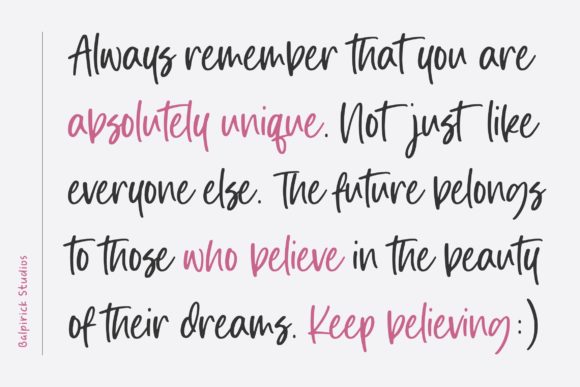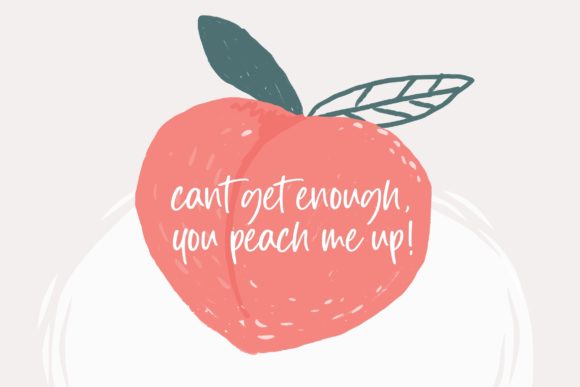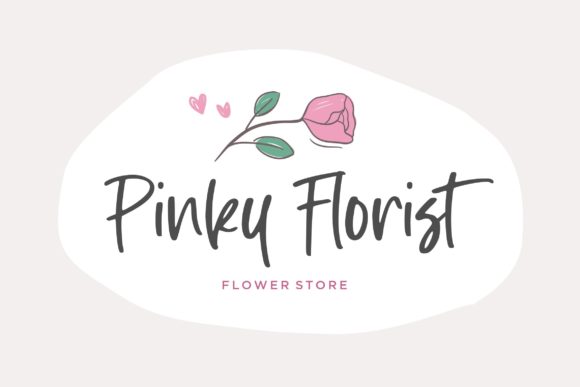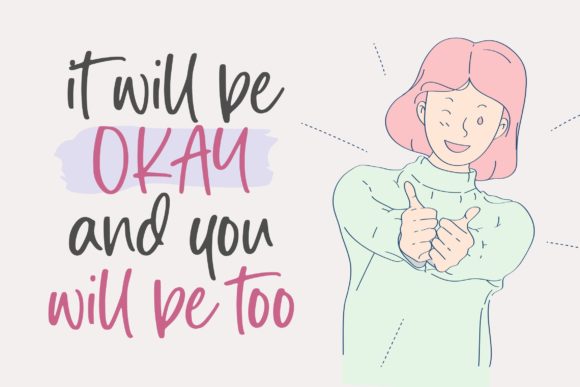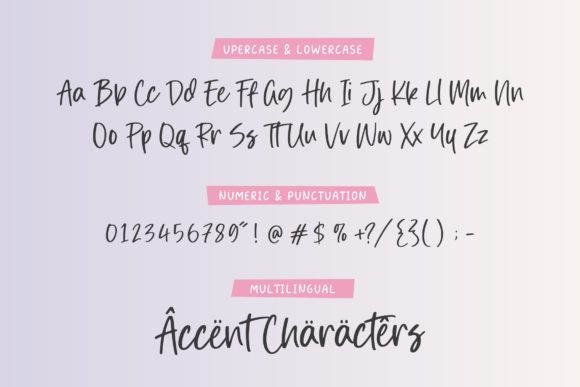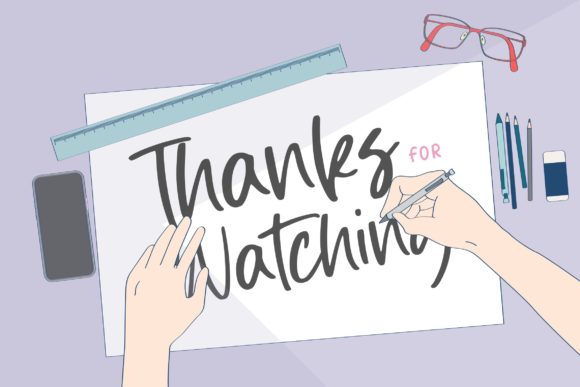
Introduction to Dimelike Font
Dimelike feels equally charming and elegant.
It looks stunning on wedding invitations, thank you cards, quotes, greeting cards, logos, business cards and every other design which needs a customized touch .
Key Features of Dimelike Font
Why Choose Dimelike Font?
Dimelike Font offers exceptional quality and versatility, making it a valuable addition to your design toolkit. Whether you’re creating for personal projects or commercial use, Dimelike Font delivers professional results.